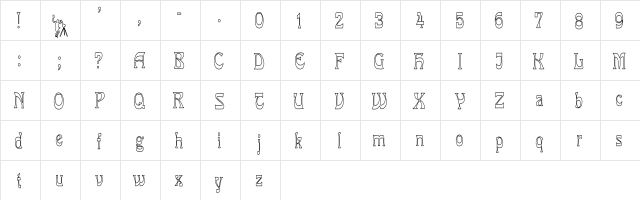
La Rosa Hollow Cond Regular Font Preview
La Rosa Hollow Cond Regular
La Rosa Hollow Cond Regular Font Details
Design Context for La Rosa Hollow Cond Typeface
La Rosa Hollow Cond is a composed and adaptable typeface that performs quietly and consistently across a wide range of design contexts. Its narrow stance lets it pack a punch even in space-constrained designs.